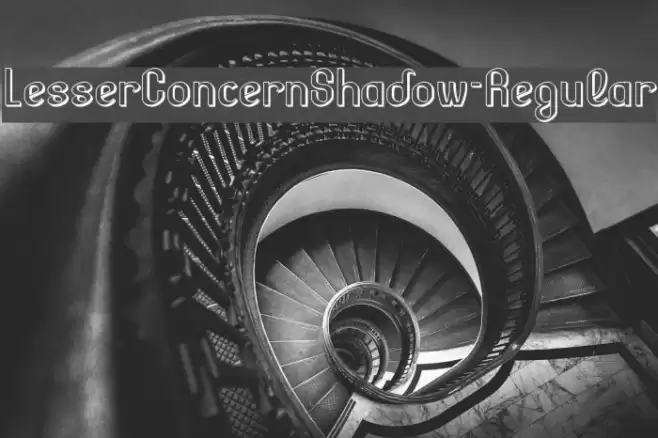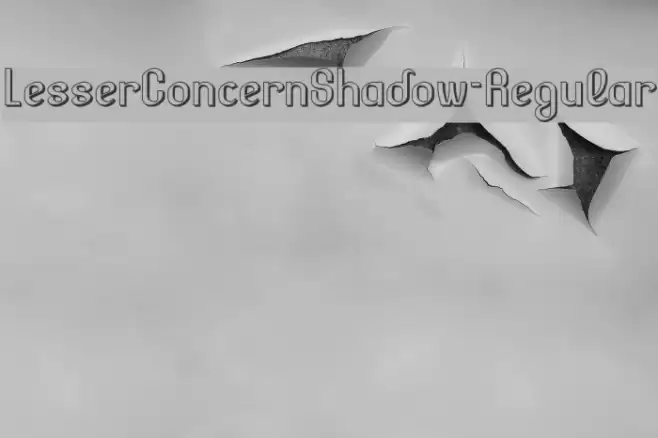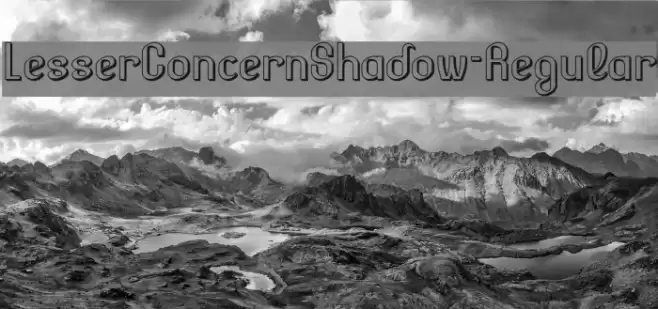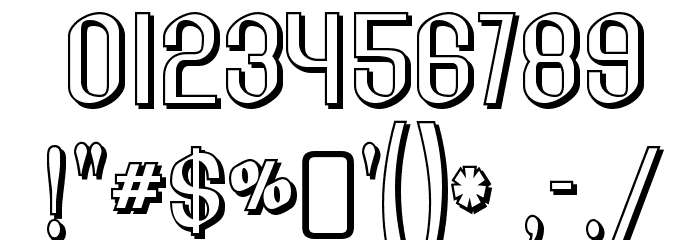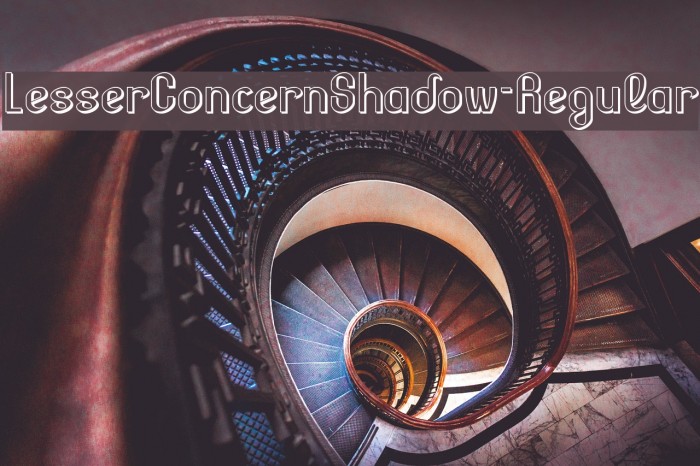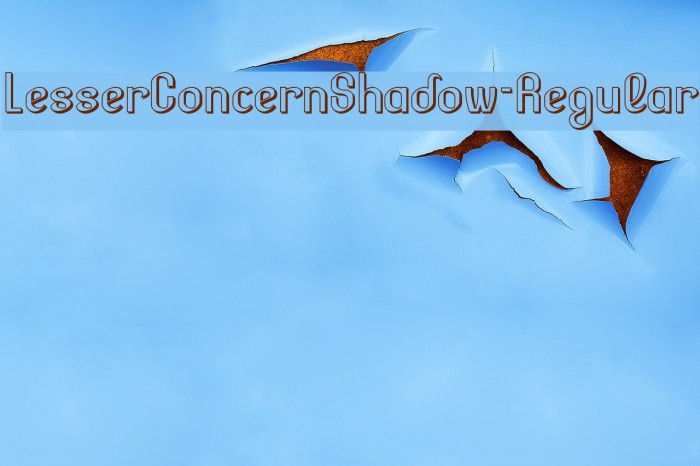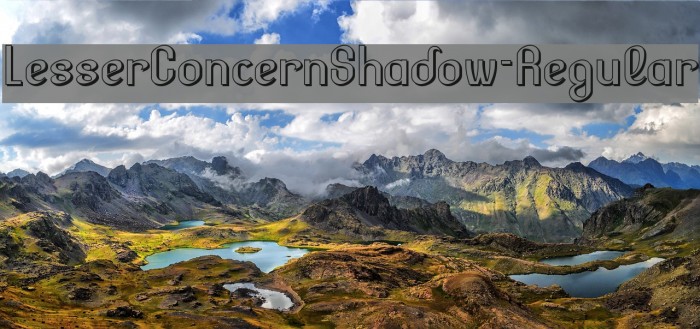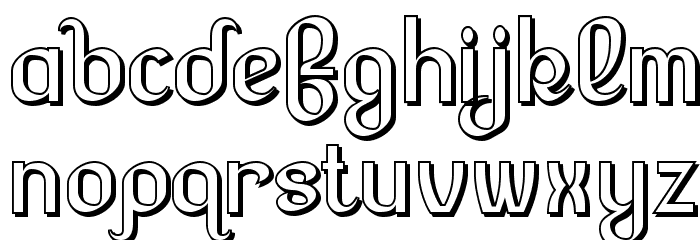
LesserConcernShadow-Regular Font
LesserConcernShadow-Regular Description
This font features a unique shadow effect that gives each character a three-dimensional appearance. The uppercase and lowercase letters are designed with a consistent geometric style, incorporating clean lines and rounded edges. The numerals and special characters maintain this aesthetic, ensuring a cohesive look across all elements. The shadow effect adds depth, making it suitable for eye-catching designs. Its bold and structured form makes it ideal for display purposes, where readability and impact are essential.
A geometric font with a shadow effect, offering a bold and three-dimensional appearance from Uncategorized fonts.
- Proposed Projects: Ideal for posters, headlines, logos, and branding materials where a striking and modern look is desired.